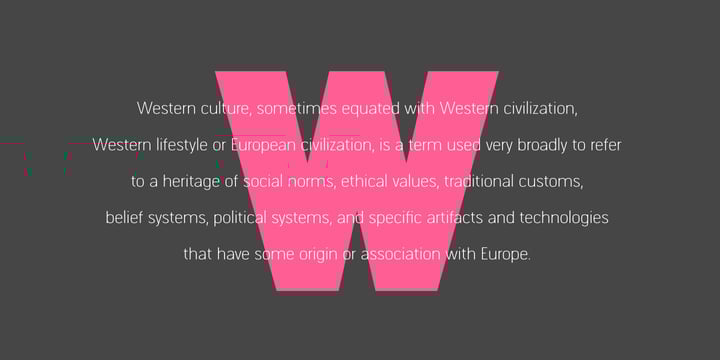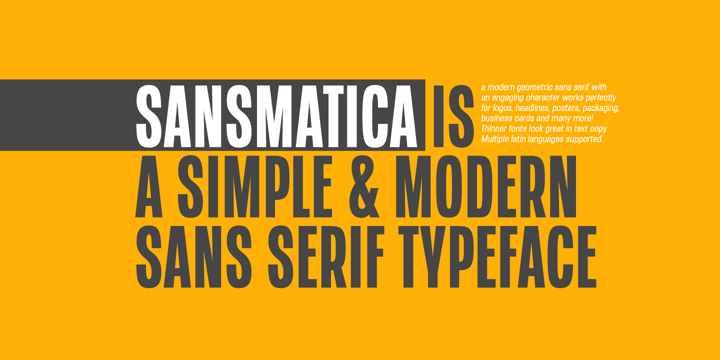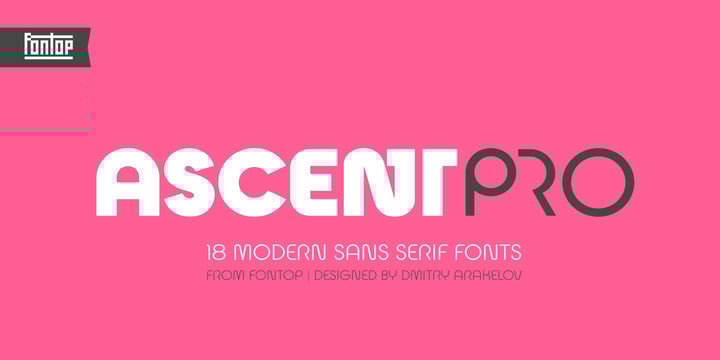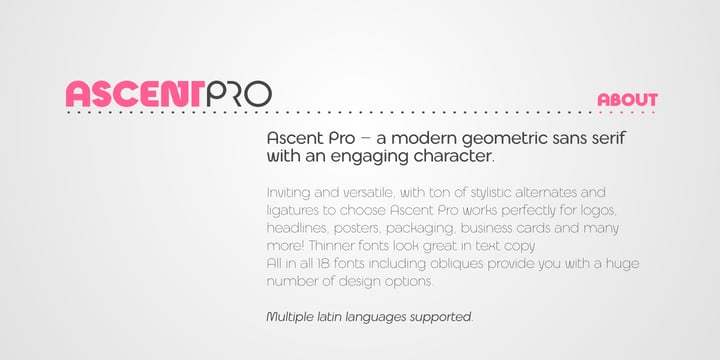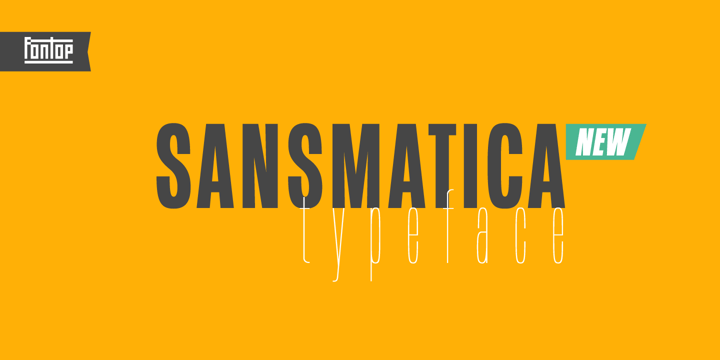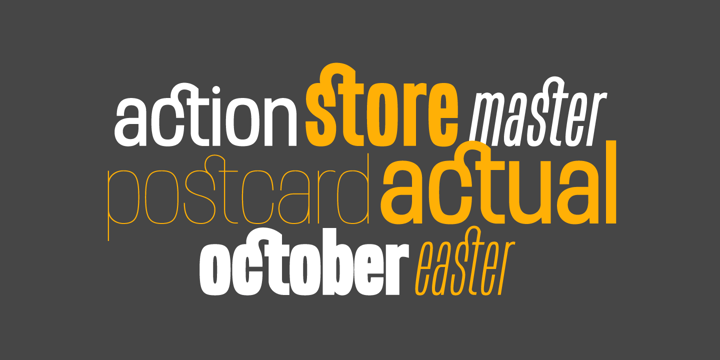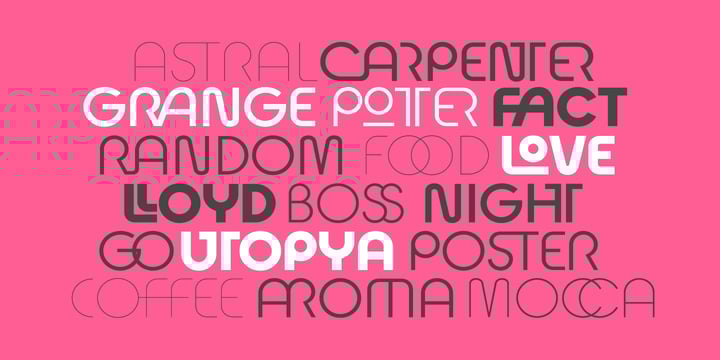
Minimalist Bundle
The Minimalist Bundle is a carefully curated selection of four distinct font families, each embodying the essence of minimalism, clean aesthetics, and modern sophistication. Designed for creators who seek clarity and simplicity, this bundle offers a versatile range of sans-serif typefaces that cater to different design needs—whether for branding, editorial layouts, web design, packaging, or social media graphics.